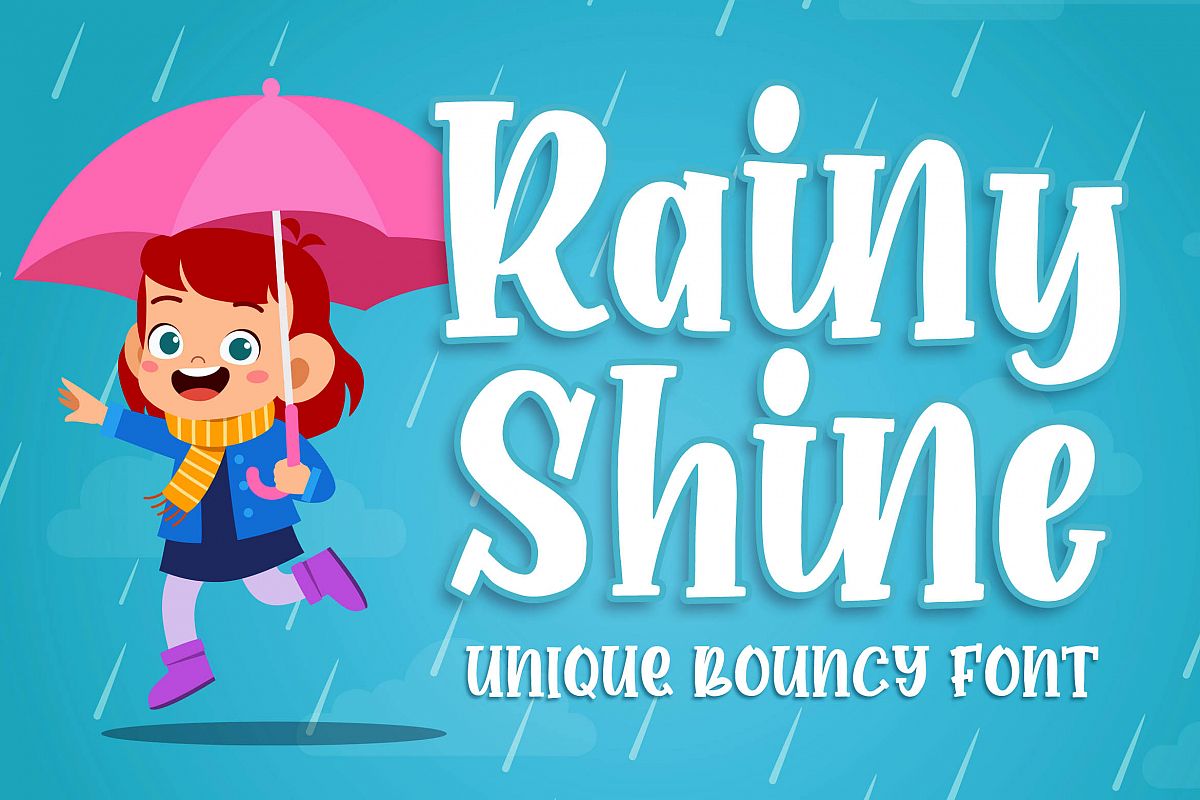
Introducing of our new product the name is Rainy Shine Unique Bouncy Font. Rainy Shine inspired by Bouncy calligraphy this font is a fun theme very good for kids, comic, food logo, food menu, wedding invitation, logotype and etc
MULTILINGUAL ACCENT :
ØÆøæ¢ÐŒœÁĂÂÀÄĄÅÃǼĆČÇĈĊĎÉĔĚÊËĖÈĘĞĜĢĠĤÍĬÎÏİÌĮĨĴĶĹĽĻĿŃŇŅÑÓŎÔÖÒŐǾÕŔŘŖŚŠŞŜȘŤŢÚŬÛÜÙŰŲŮŨẂŴẄẀÝŶŸỲŹŽŻáăâäàąåãǽćčçĉċďéĕěêëėèęğĝģġĥíîïìįĩĵķĺľļŀńʼnňņñóŏôöòőǿõŕřŗśšşŝșťţŭûüűùųůũẃŵẅẁýŷÿỳźžż